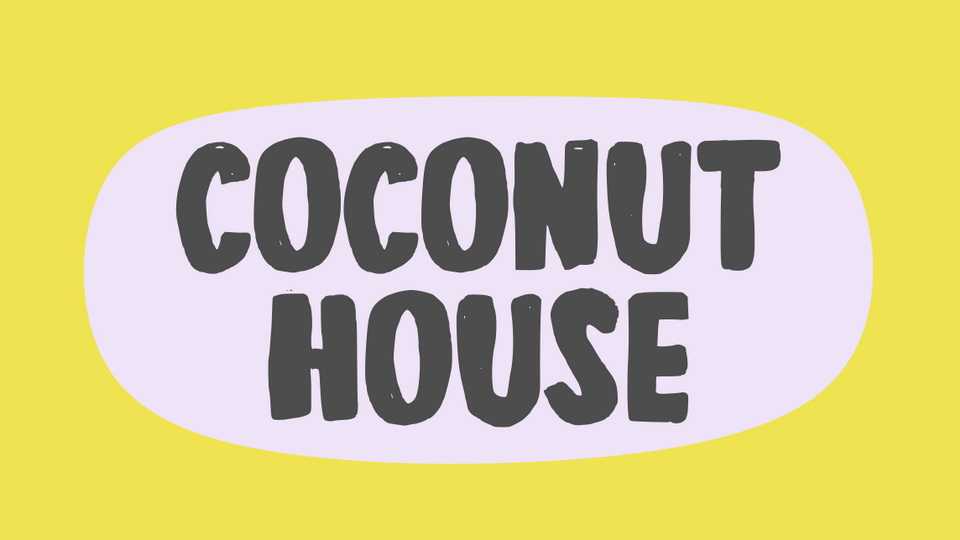
Download Coconut House font, a fun and playful hand lettered brush typeface. Coconut House perfectly fits for comics, games, kid’s products, fun projects and more.
Designer: Joe Letter